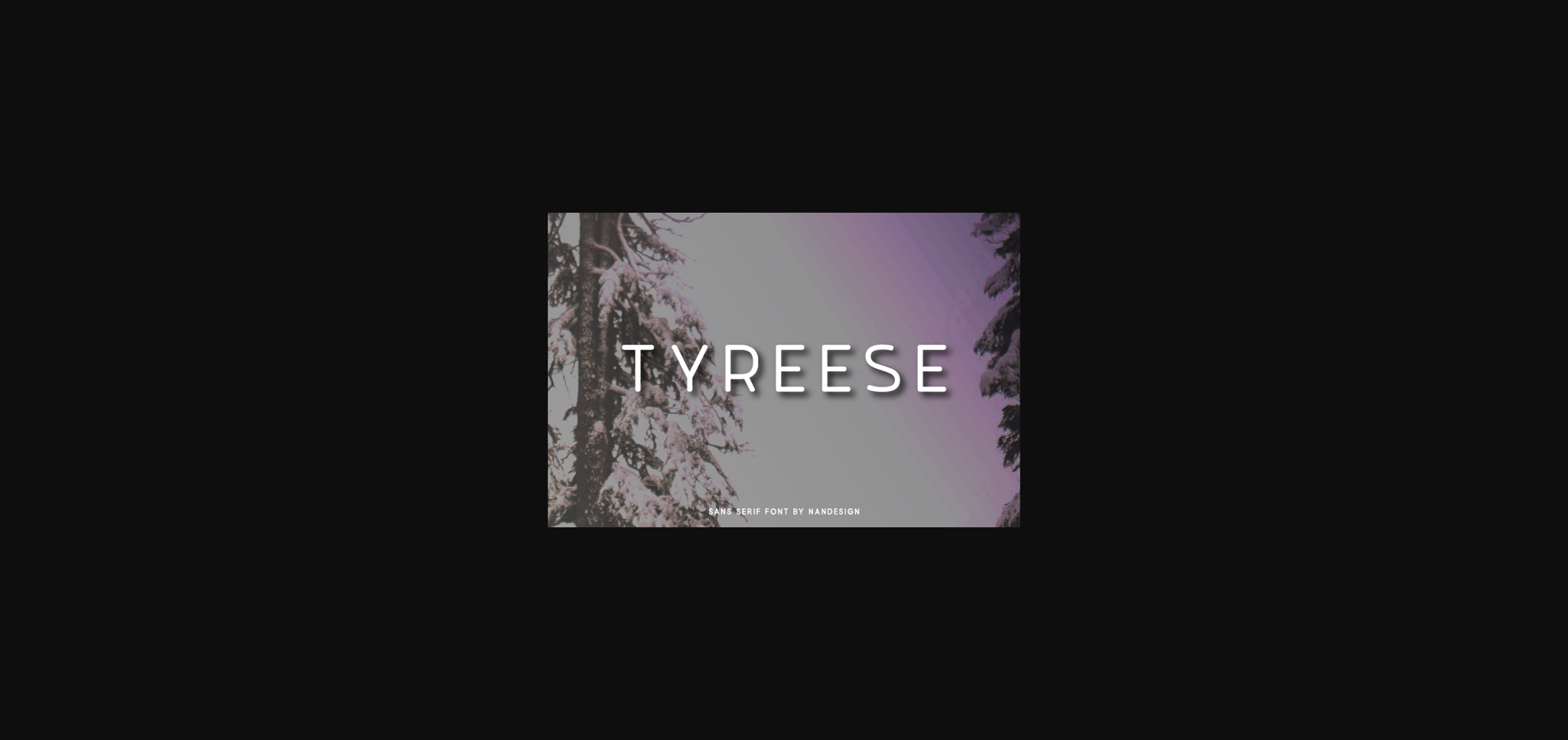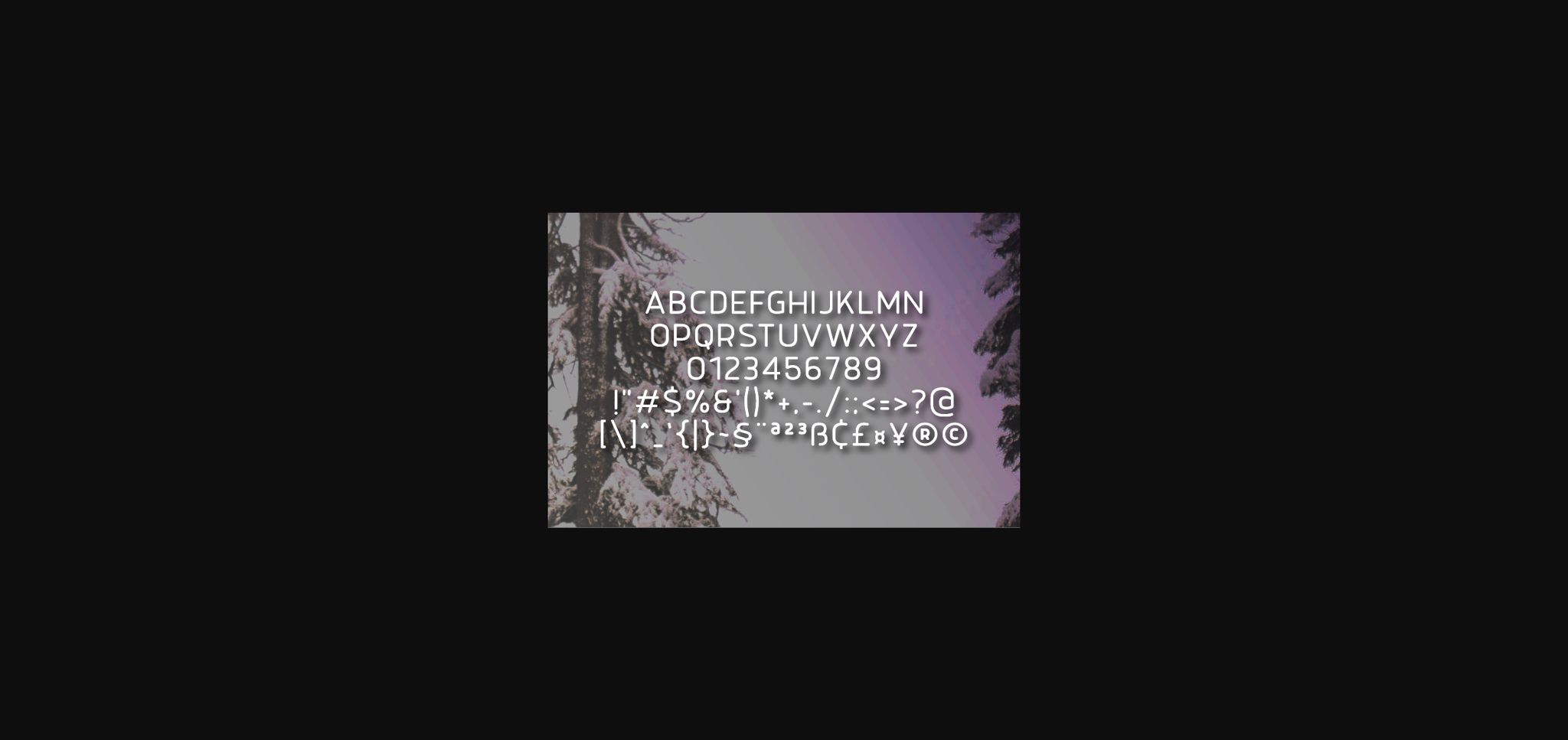
Tyreese Font
About Tyreese Font
Tyreese is a relaxed sans serif font with an undeniably clean feel. With its neat and beautiful arrangement of letters, this typeface will look outstanding in both formal and non-formal designs.